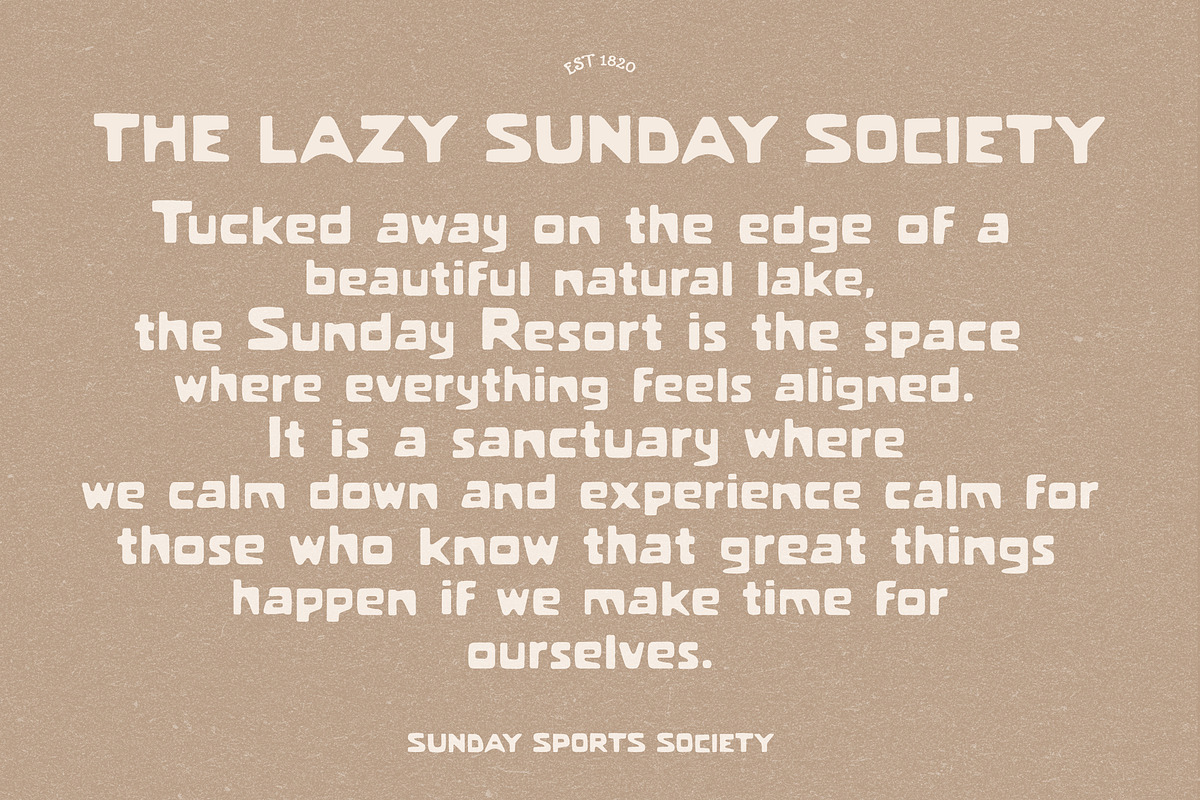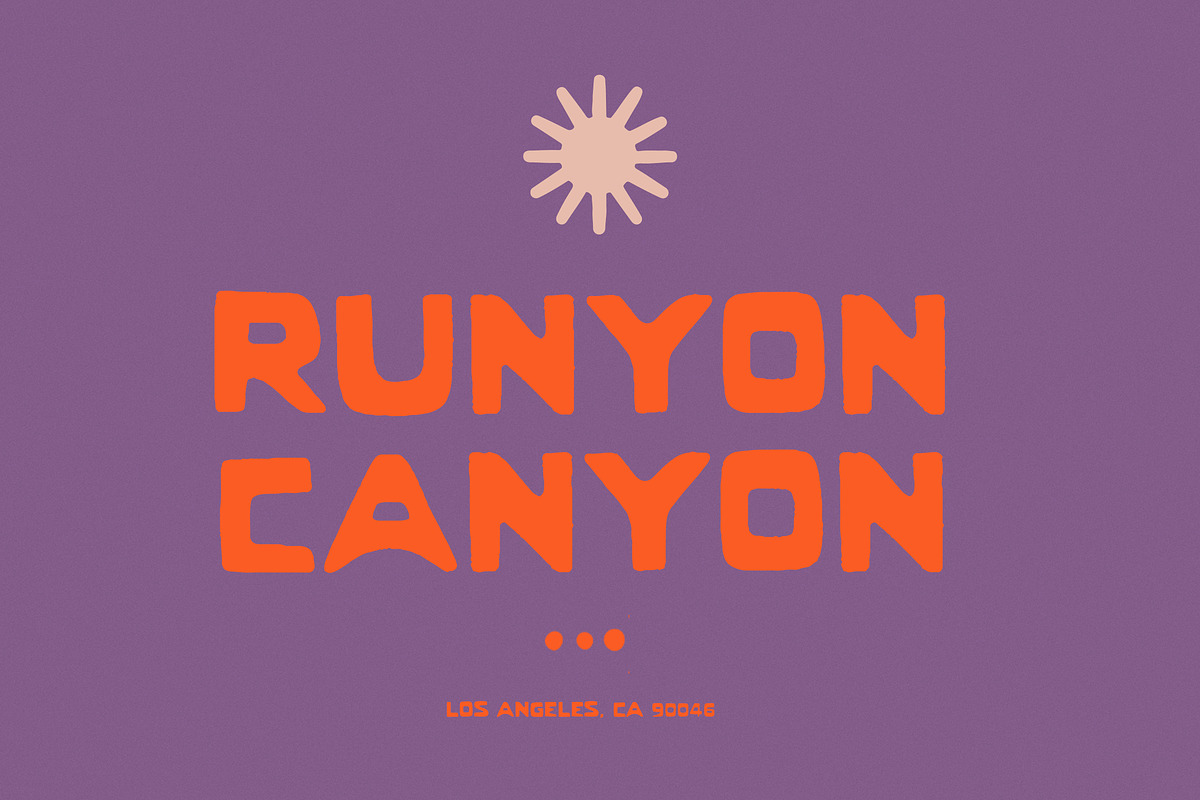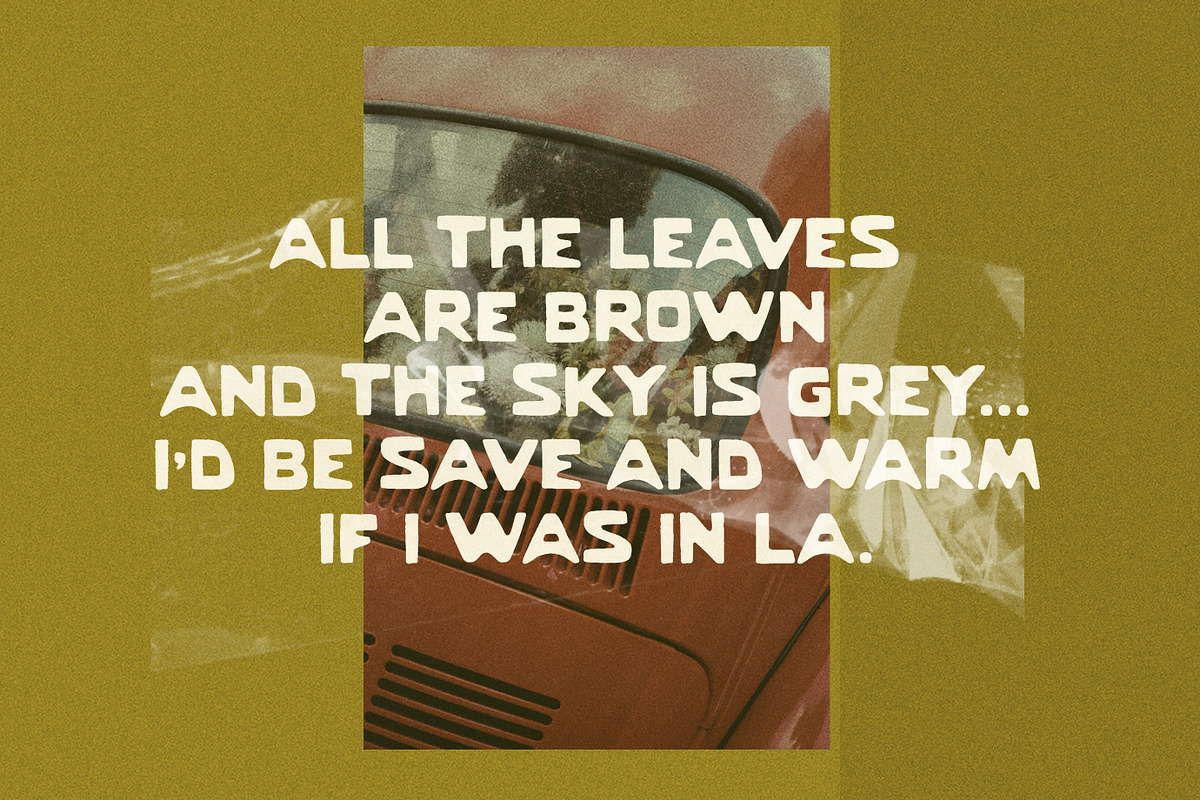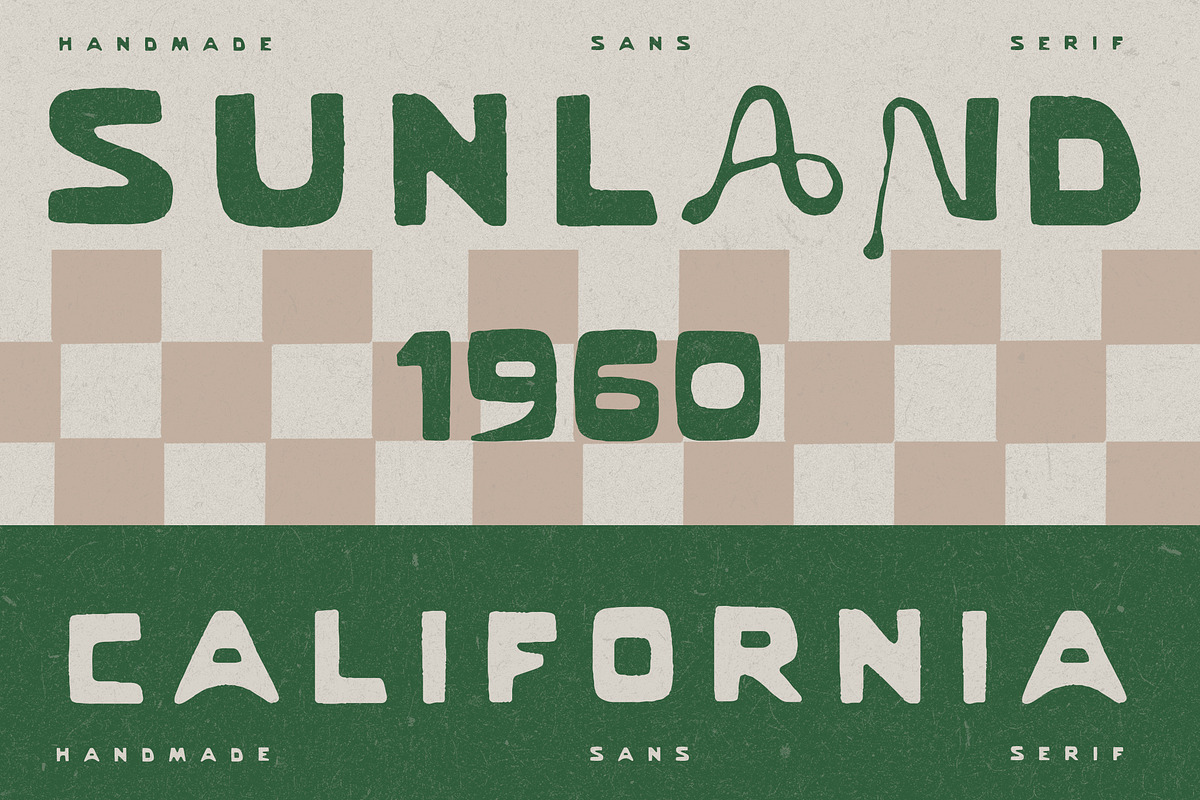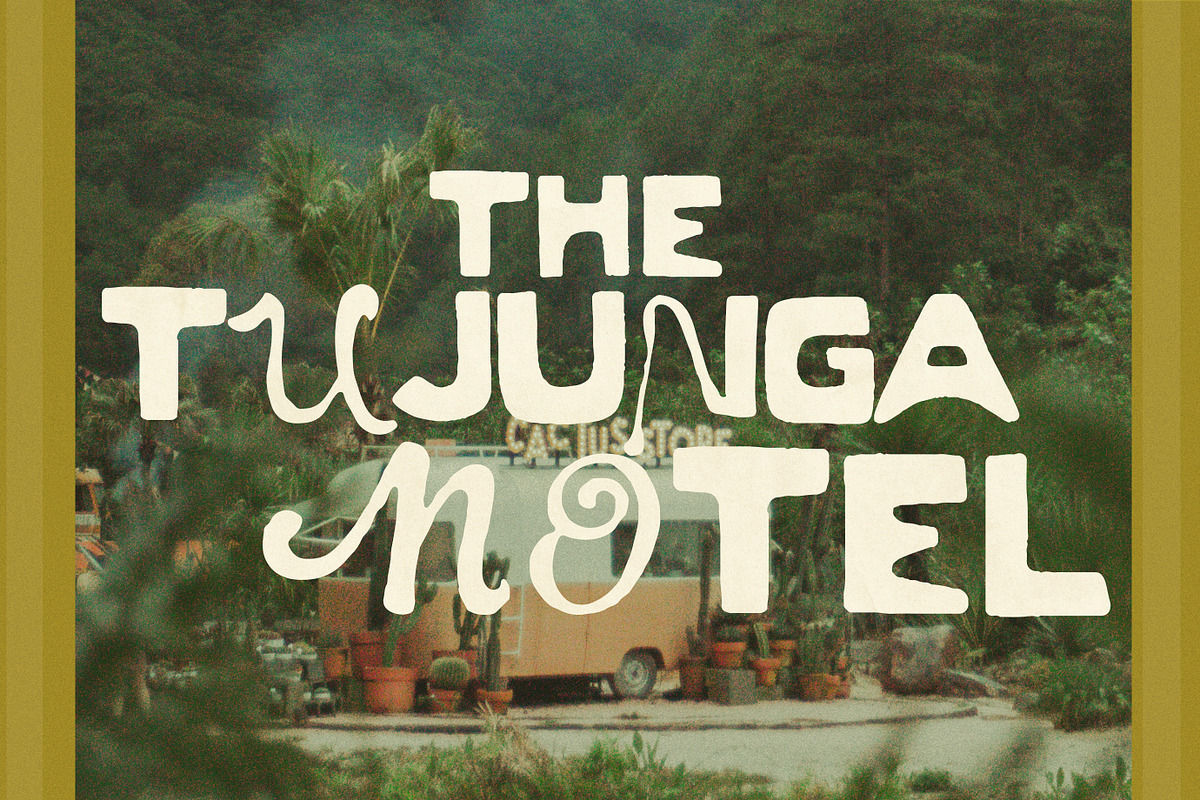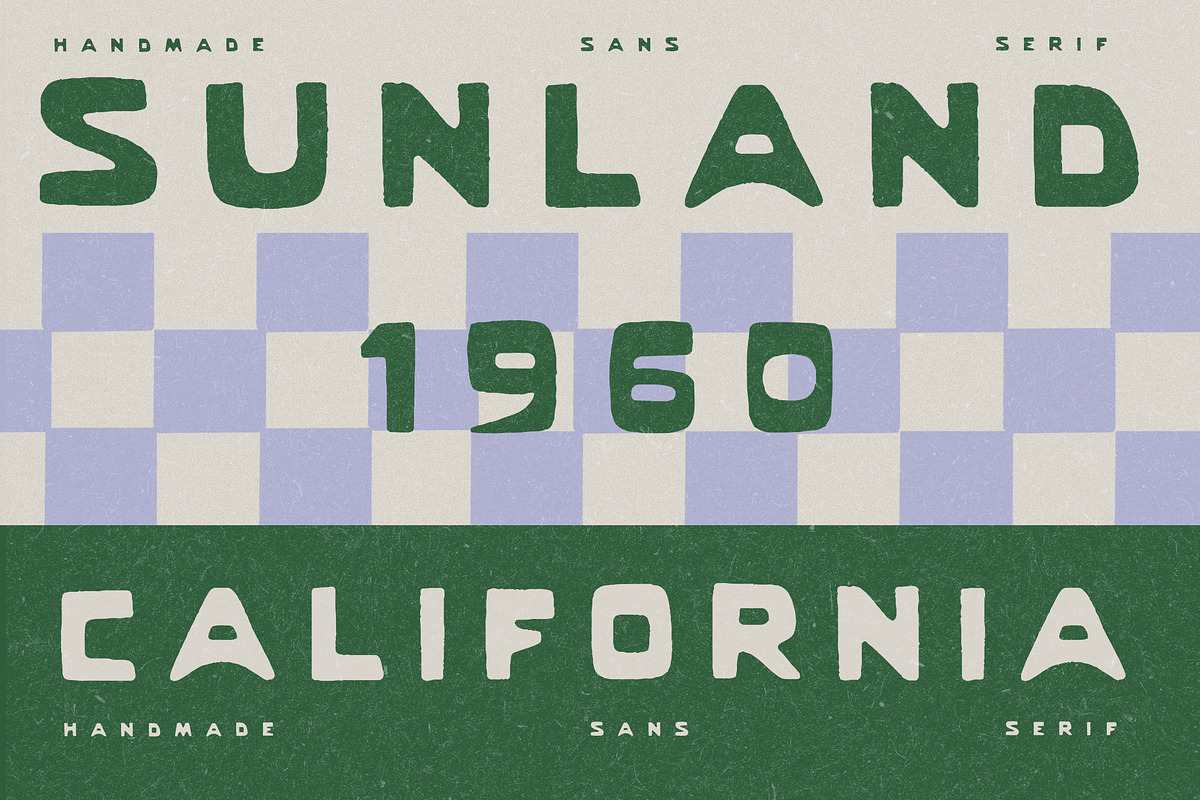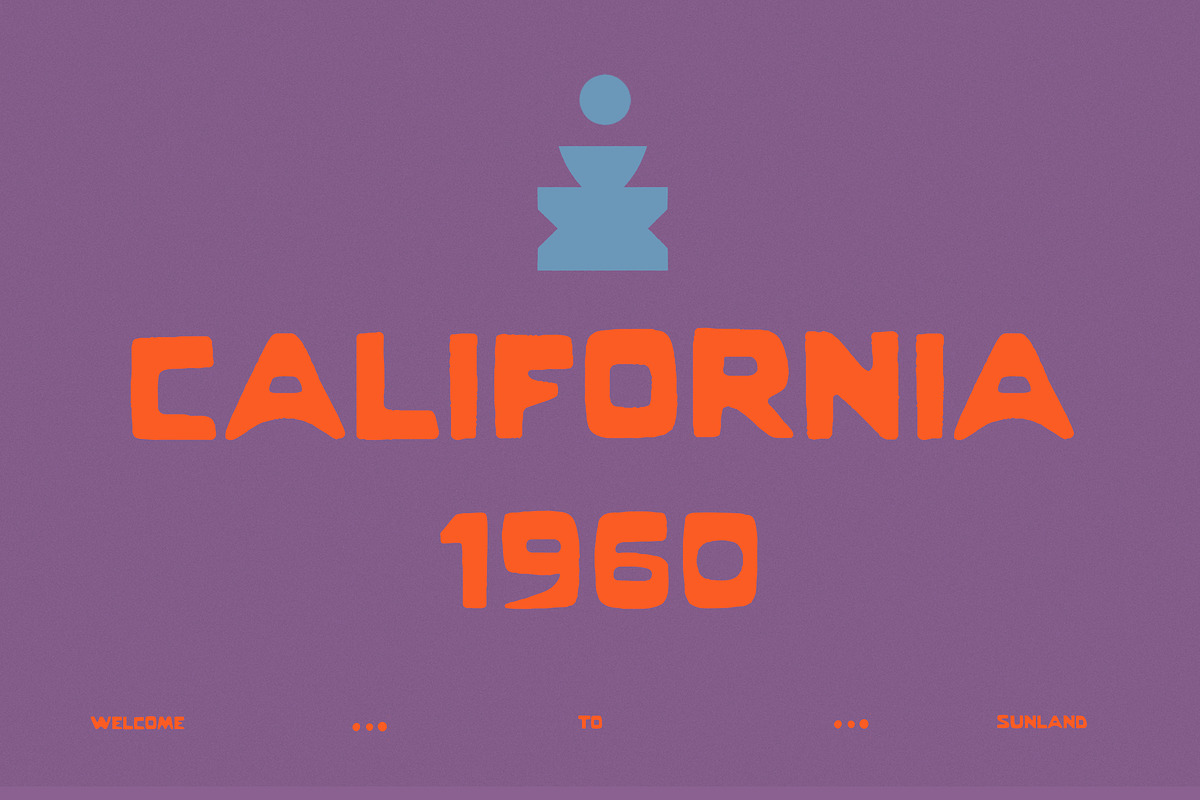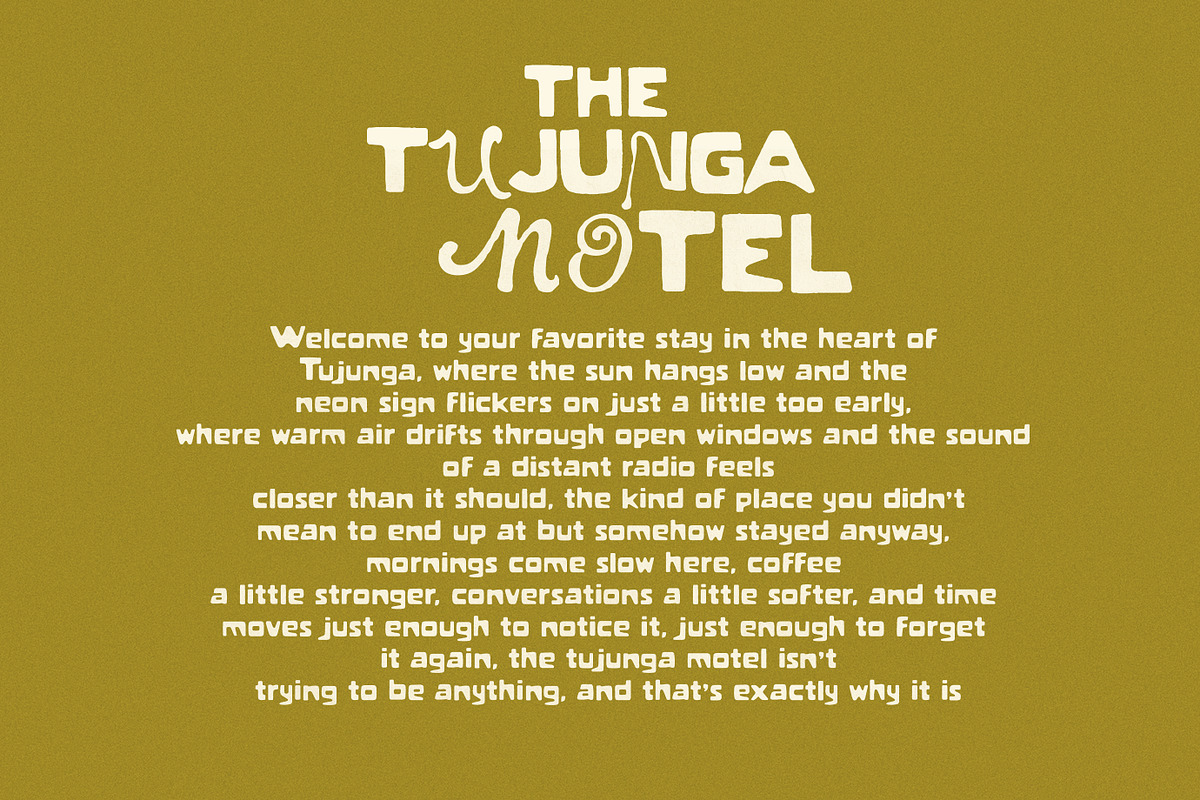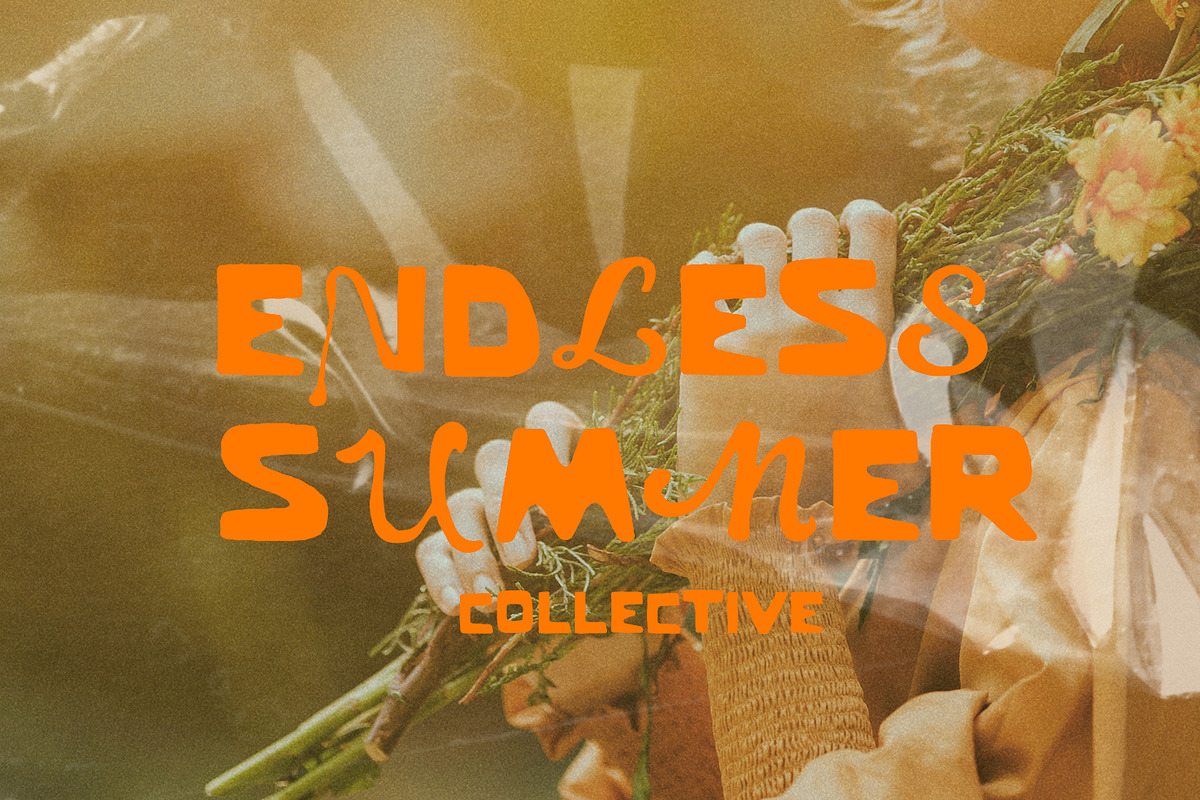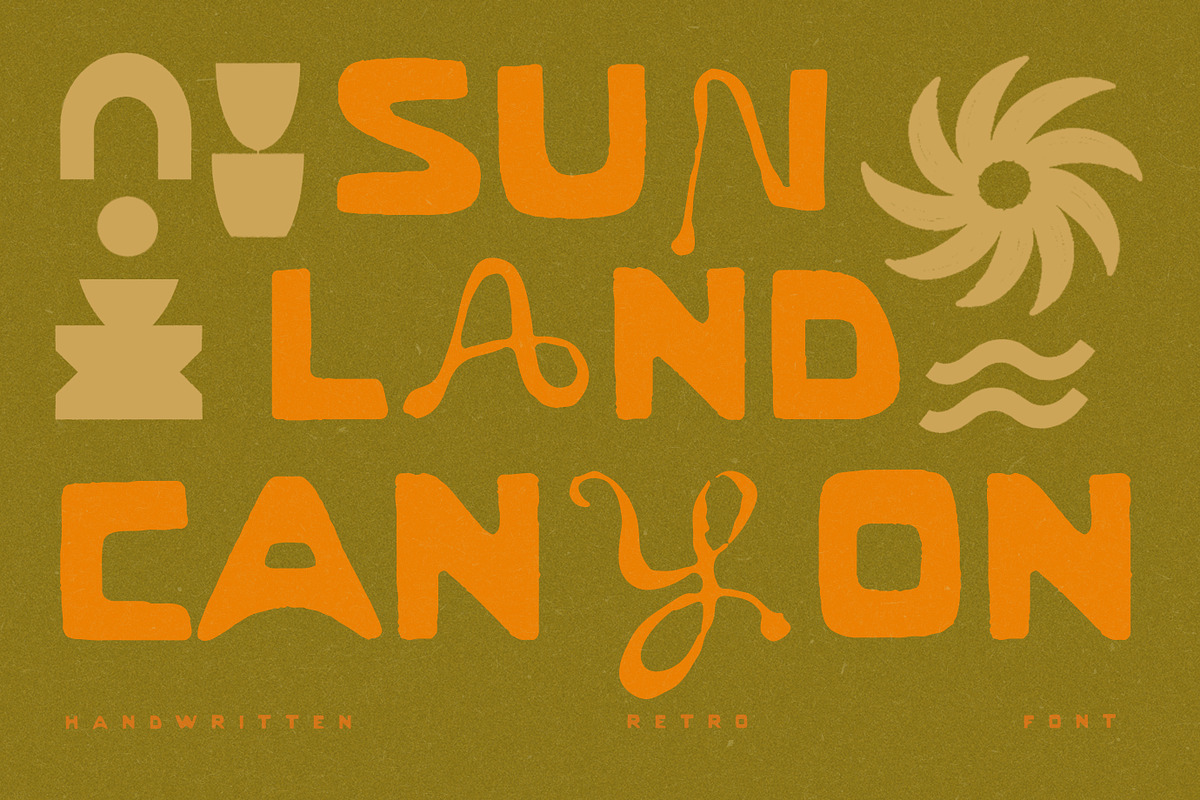
Handwritten Midcentury Motel Font
Sunland is a display font shaped by the spirit of 1960s Californian design. Inspired by sun-faded signage and clean, forward-looking forms. It carries that distinct mix of laid-back ease and quiet confidence that you can see in mid century modern architecture bungalows sitting in the hills.
There’s a natural rhythm to it that feels nostalgic, supported by experimental alternates that turn this font into a statement or logo in a matter of seconds.
Designed for projects that need character without losing clarity, this font fits seamlessly into branding, posters, packaging, logos and social media visuals. It brings a strong visual identity while keeping everything effortless and approachable.